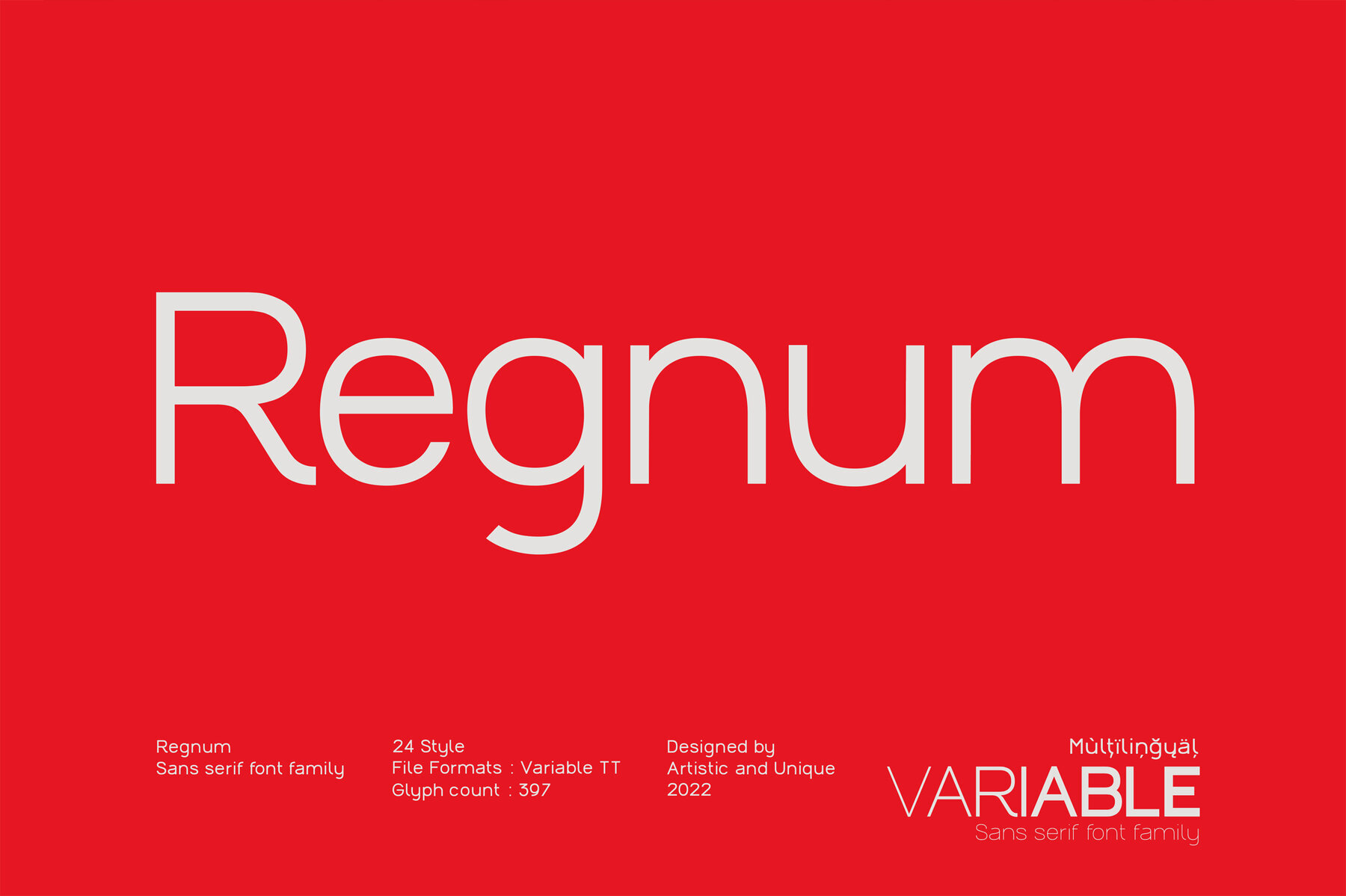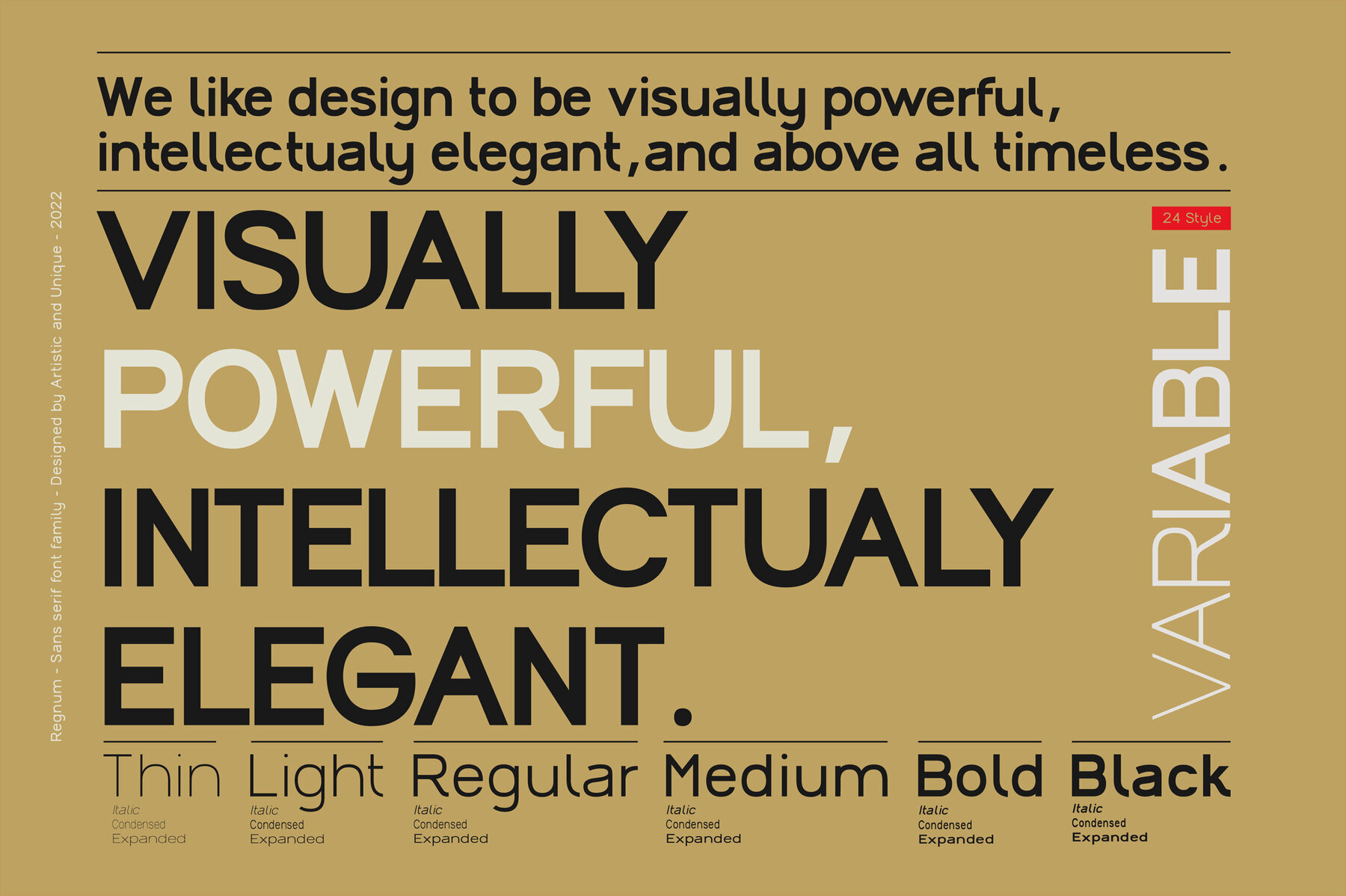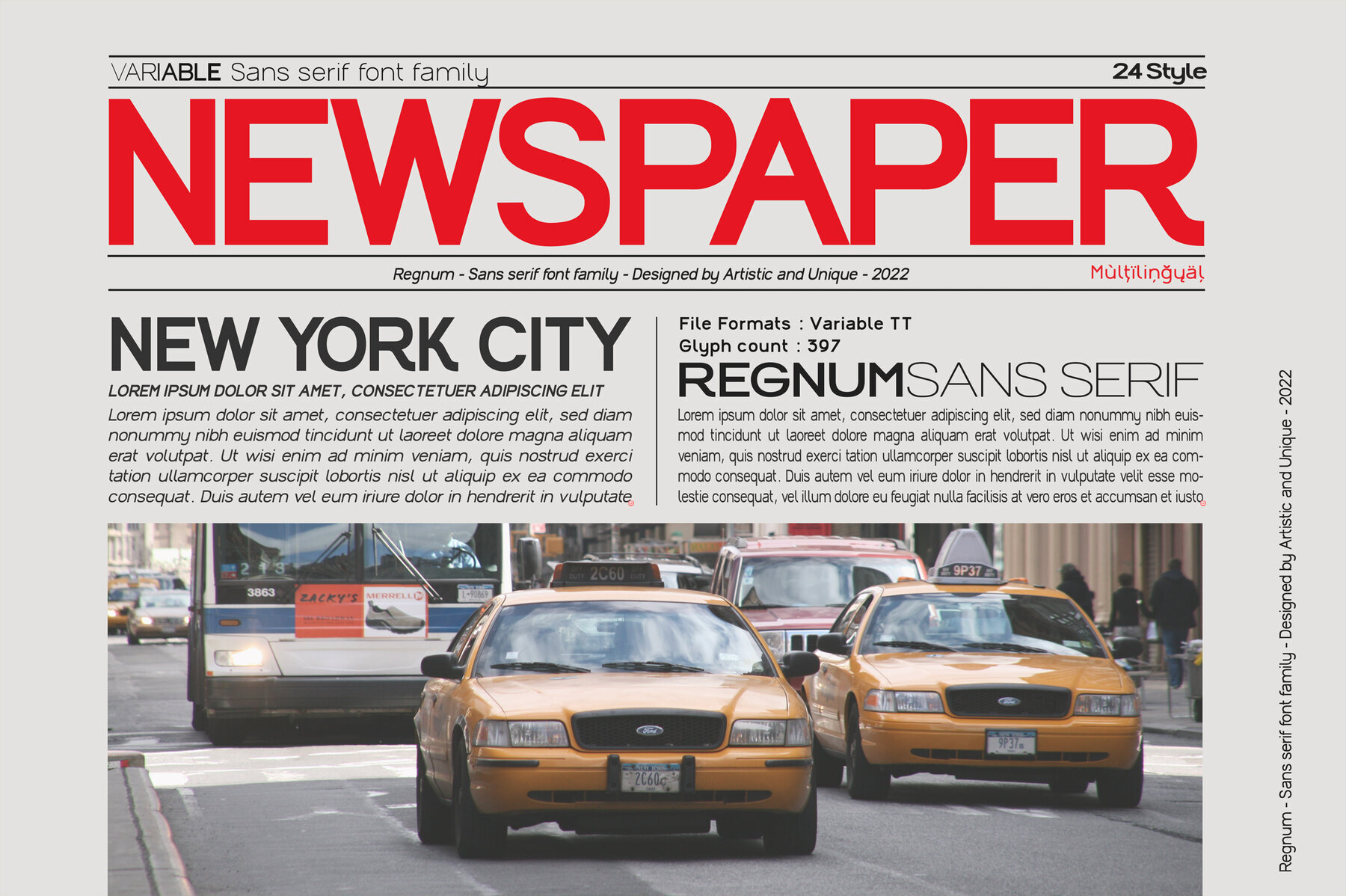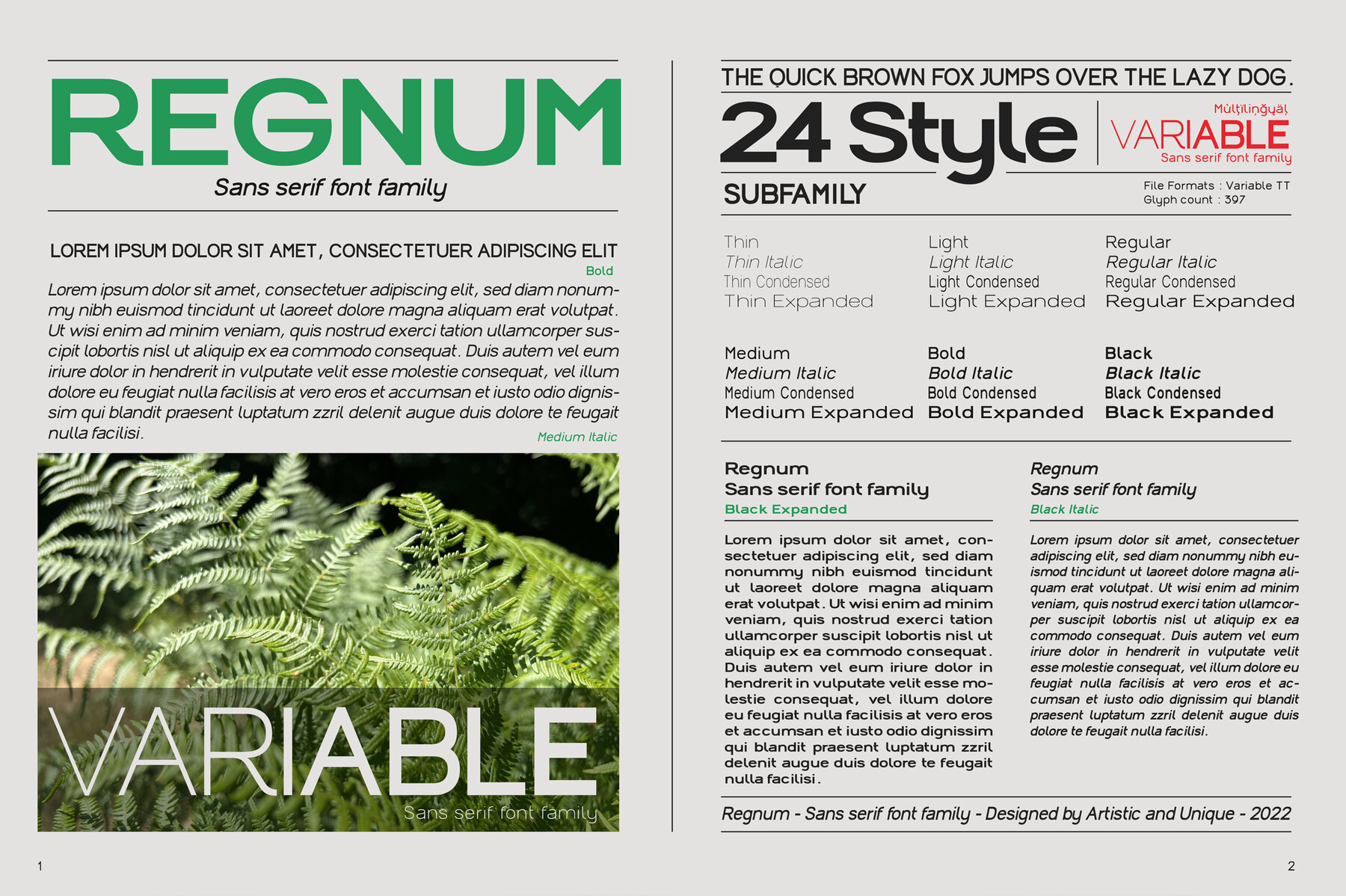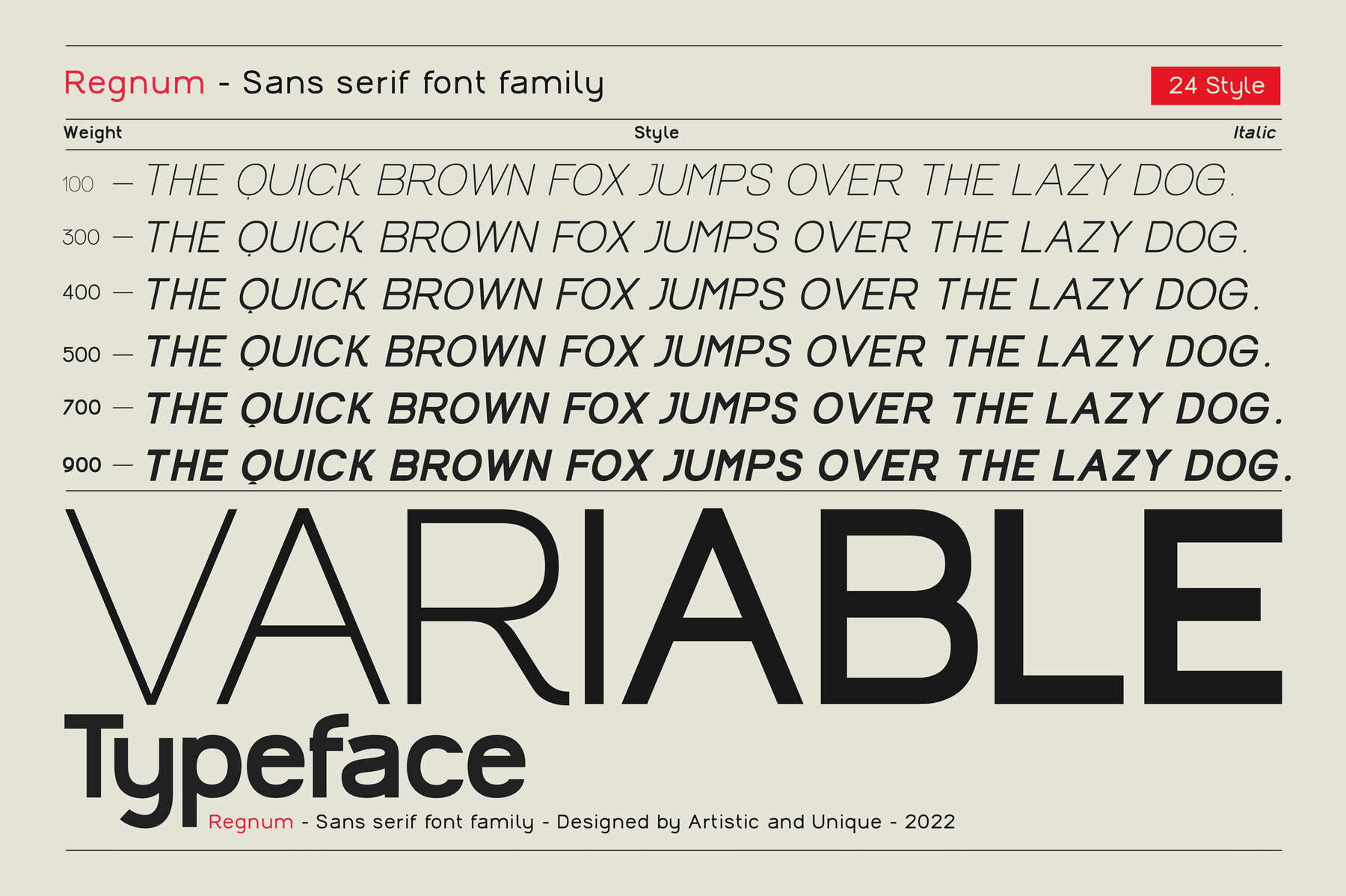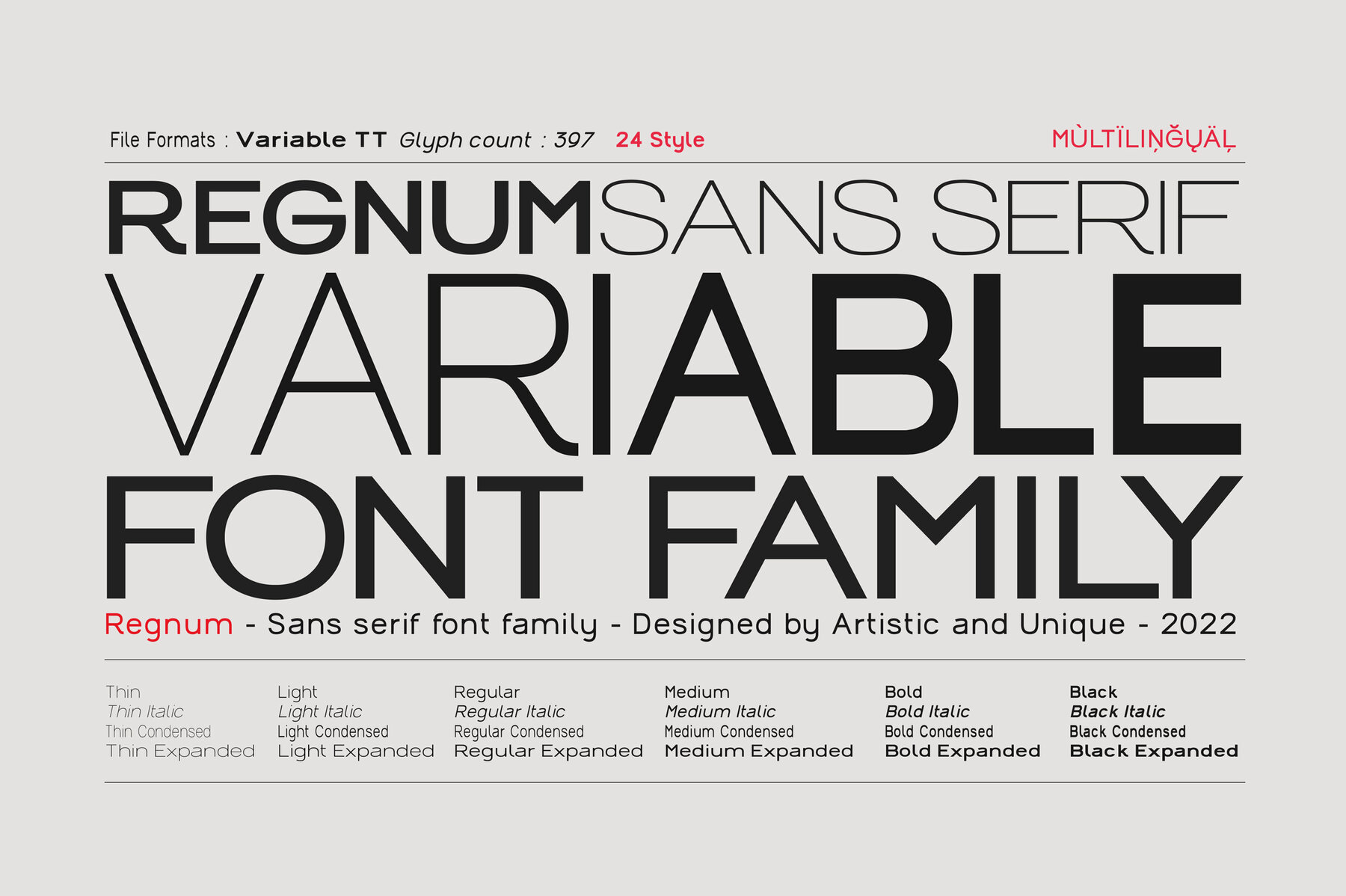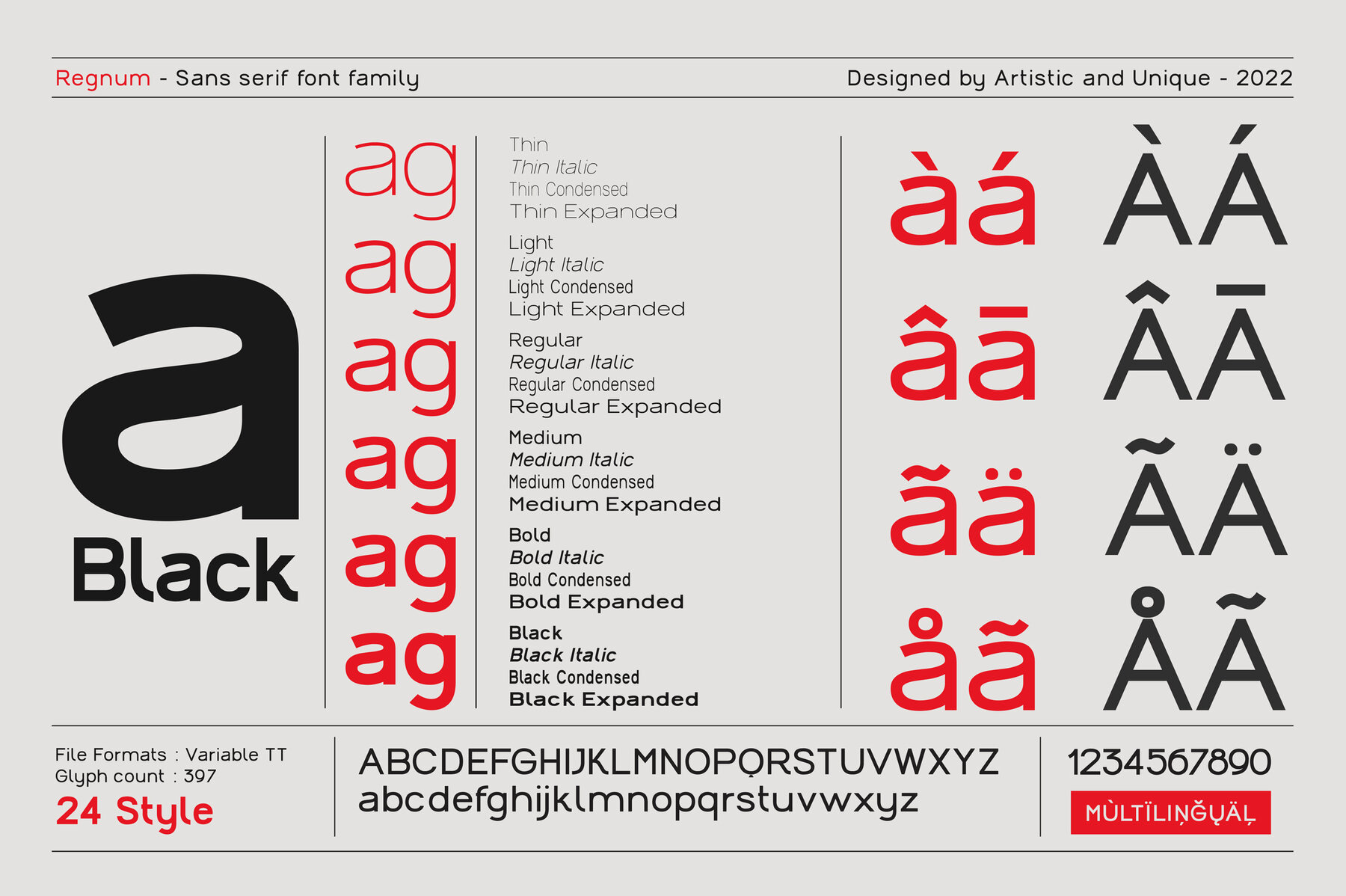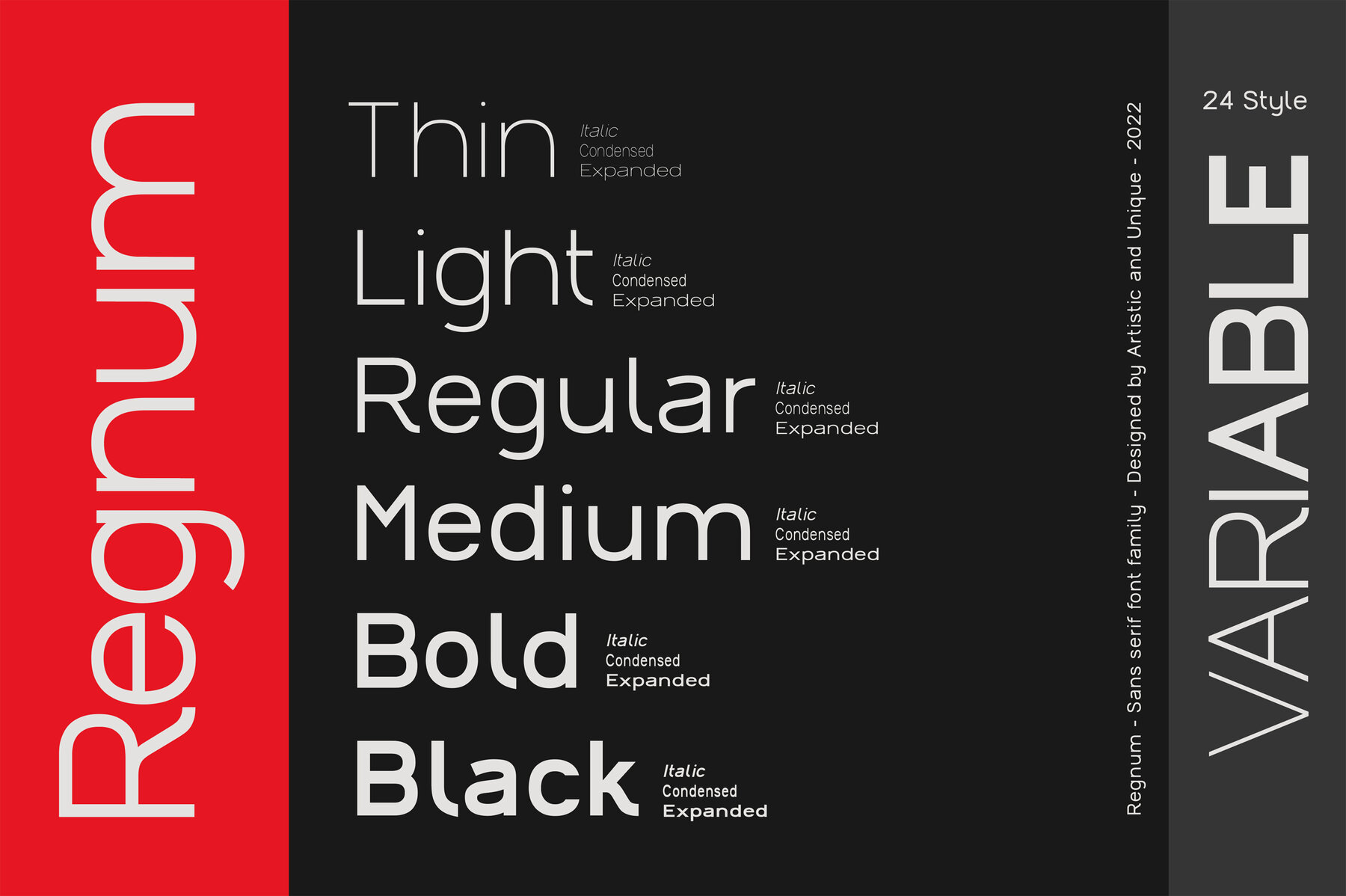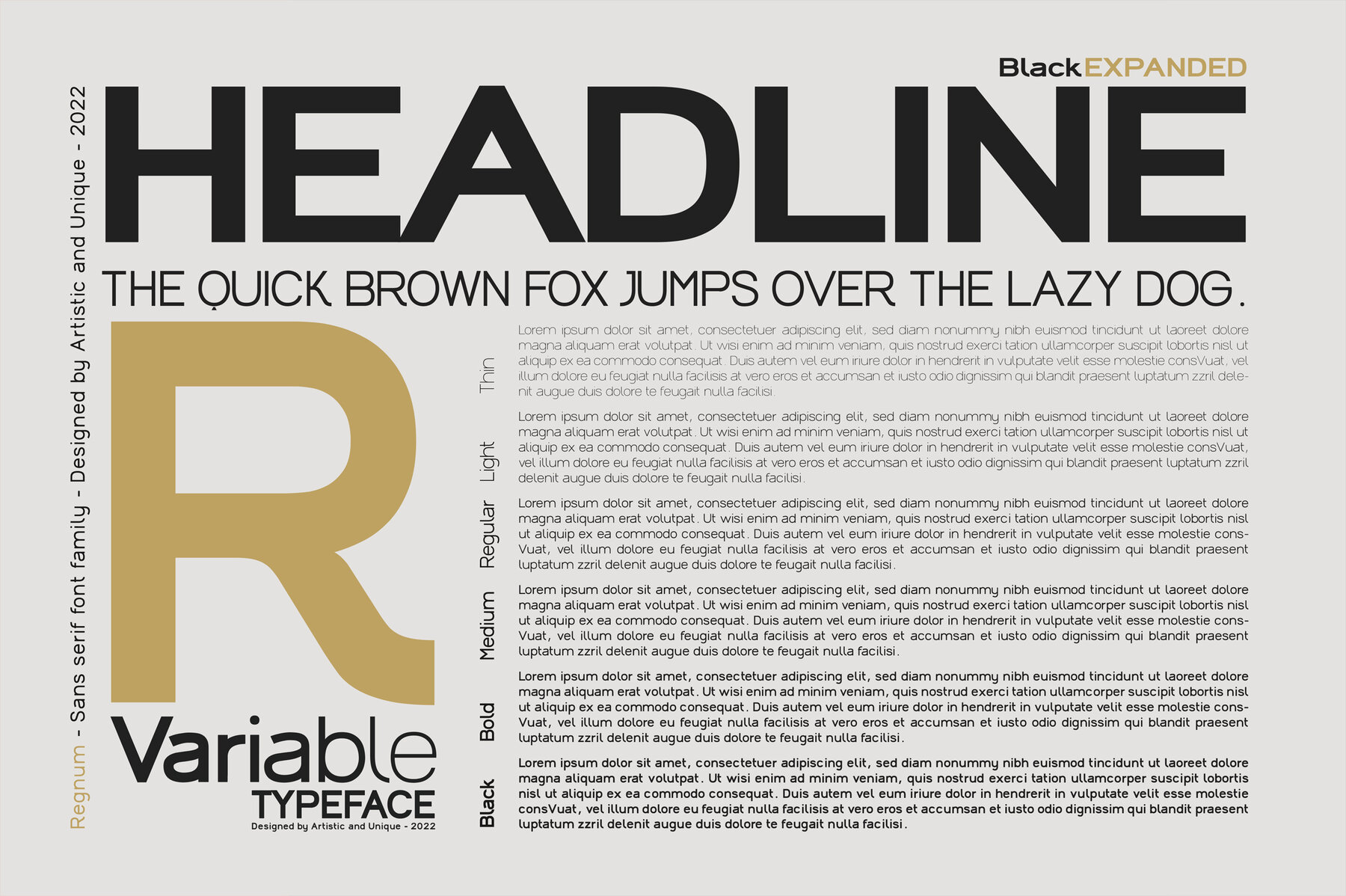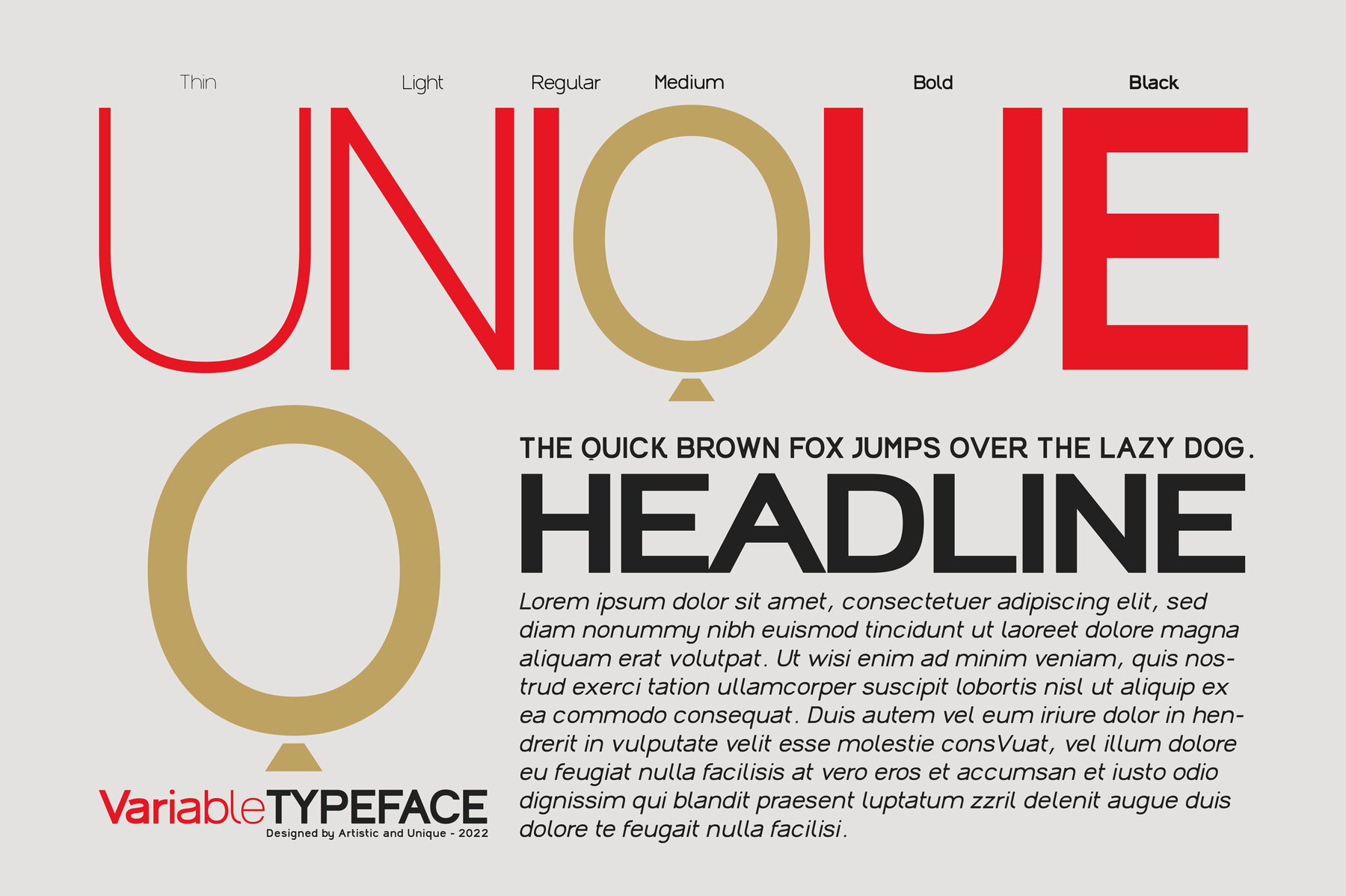
Regnum Font
Regnum font family offers variable font flexibility and enhanced performance. Its timeless structure allows for the creation of modern-elegant or classic design alternatives. Regnum, a modern variable sans serif font family, provides freedom and boosts creativity through its various design possibilities. Enhance your designs with a combination of strong Black style and Thin style. The dynamic nature of Regnum makes it ideal for books, magazines, editorials, headlines, websites, logos, branding, advertising, and more. It caters to both modern and classic creative needs.Regnum: Versatile Sans Serif Font Family in 24 Styles
Creative Flexibility
Diverse Applications